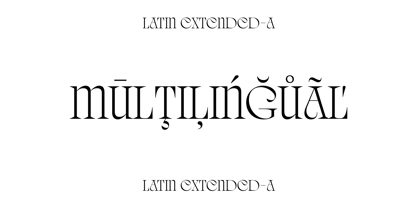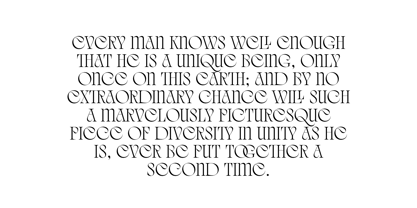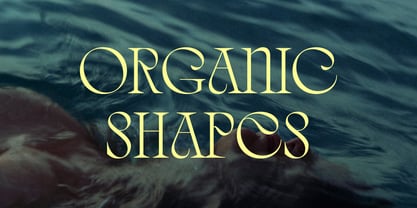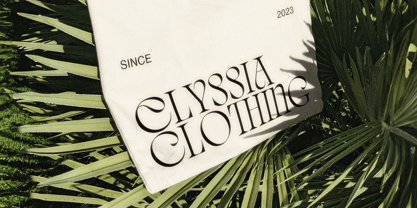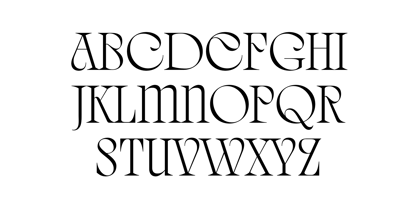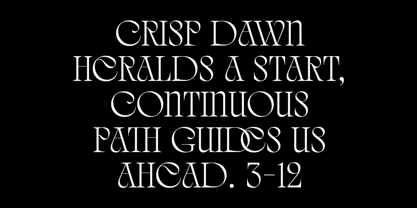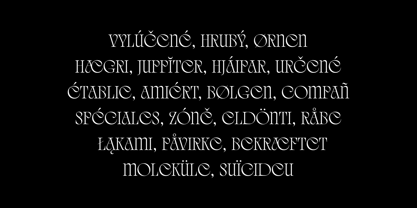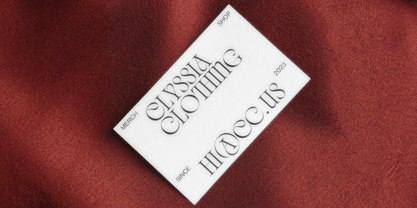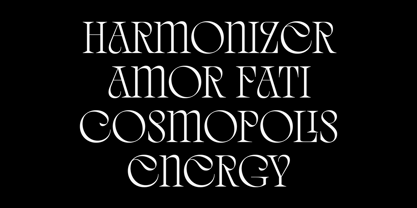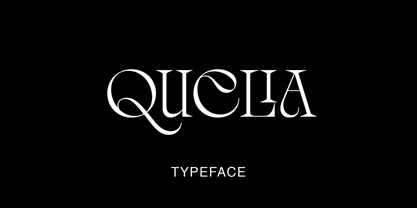
Quelia
by Piotr Łapa
The Quelia Font Family was designed by Piotr Łapa and published by Piotr Łapa. Quelia contains 1 styles. More about this family
Quelia is an experimental, display, all-caps typeface inspired by nature and organic shapes. It has a very expressive character. The letterforms are extraordinary but also elegant at the same time. Quelia is a great choice for fashion projects, branding, headlines, titles, posters, packaging, covers, and logotypes but it can also add a distinct character to your website or app.